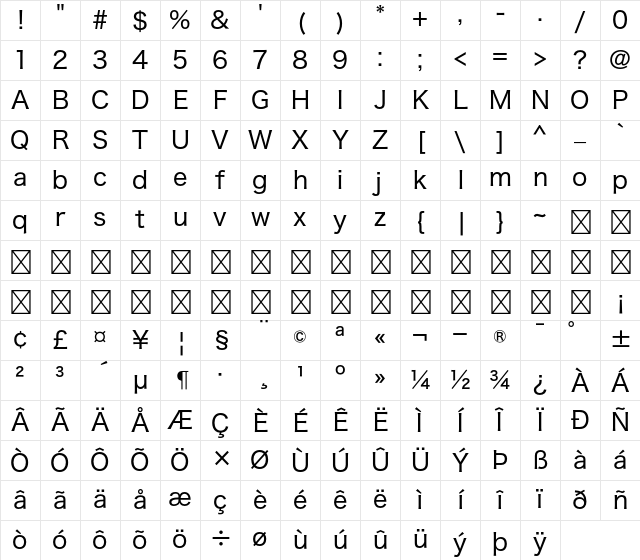
Hiragino Kaku Gothic StdN W4
Style: W4
Foundry: Dainippon Screen Mfg. Co., Ltd.
Designer: JIYUKOBO Ltd.
Complete Hiragino Kaku Gothic StdN W4 glyph index. Displaying only characters natively supported by Hiragino Kaku Gothic StdN W4 font.
Design Context for Hiragino Kaku Gothic StdN
Hiragino Kaku Gothic StdN takes a clean, functional approach - its unadorned letterforms prioritise legibility and work reliably across screen and print environments.
Font Pairing: Works well alongside a characterful serif or display font that can carry the expressive load while Hiragino Kaku Gothic StdN handles the functional copy.
Pro Tip: Use Hiragino Kaku Gothic StdN for UI labels, navigation, and short-form body copy where clean legibility is the priority.